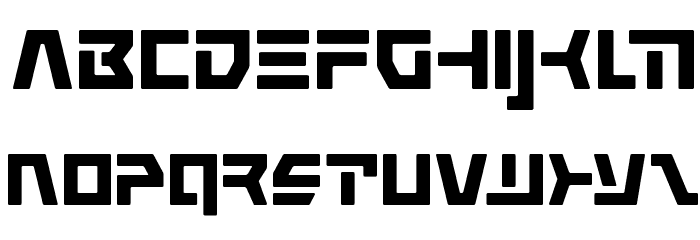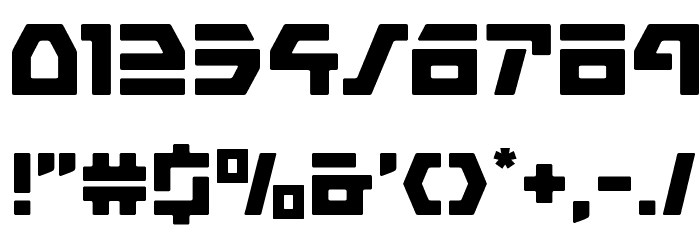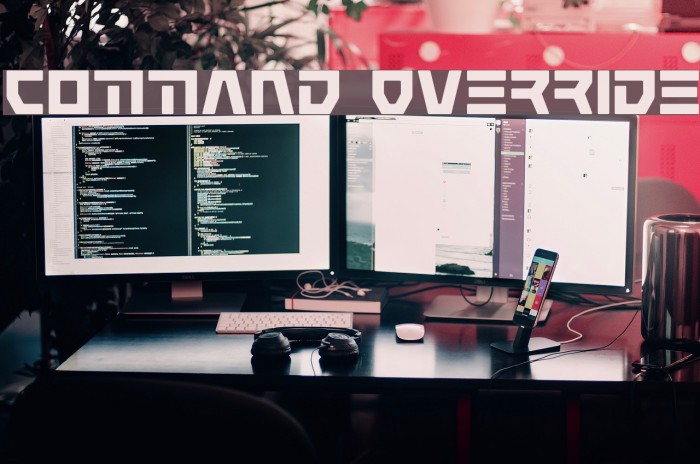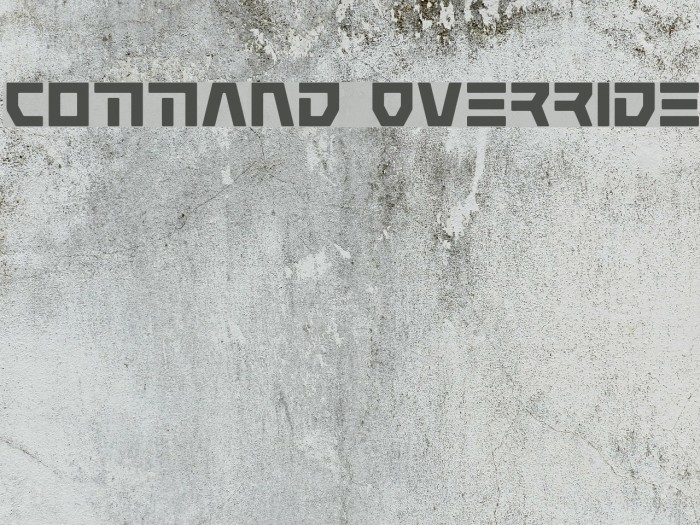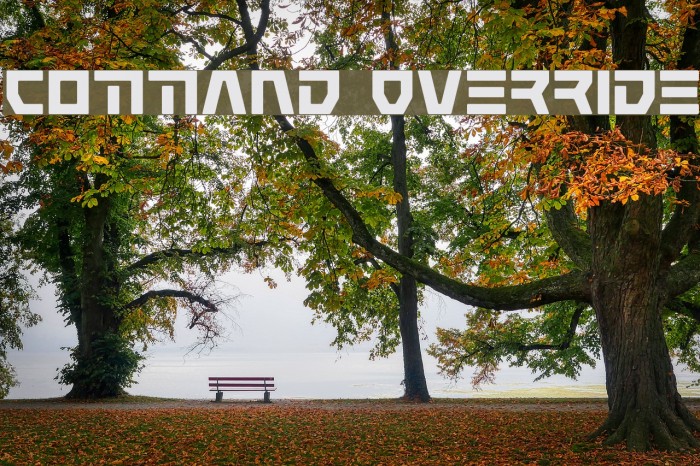
Command Override Font
This font features a bold, futuristic design with geometric shapes and sharp angles, giving it a distinct, modern appearance. The characters are constructed with thick strokes and a high level of uniformity, creating a cohesive and impactful visual style. The uppercase and lowercase letters maintain a consistent height, enhancing readability while maintaining a unique aesthetic. The numerals and special characters follow the same design principles, ensuring a seamless integration across all elements. This font is ideal for projects that require a strong, contemporary look.
A bold, futuristic font with geometric shapes and sharp angles.
- Proposed Projects: Ideal for sci-fi themed designs, video game interfaces, technology branding, and futuristic posters.